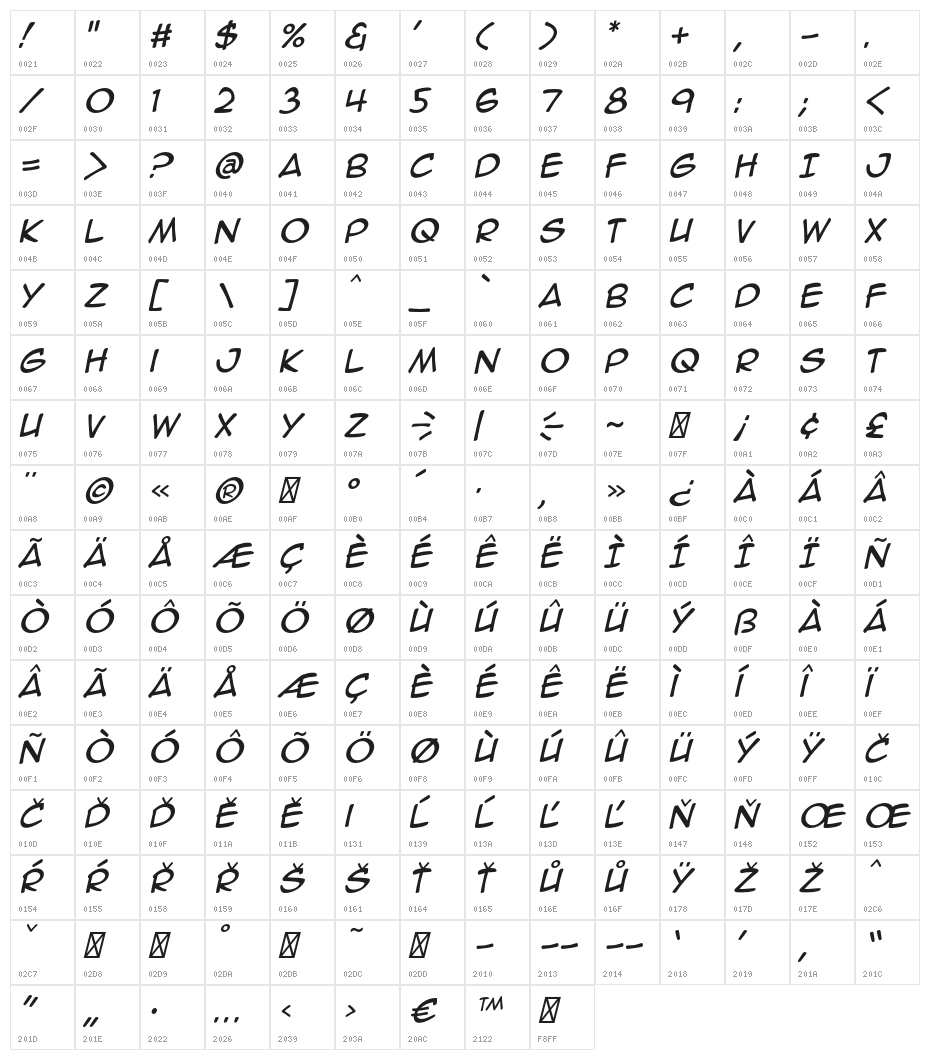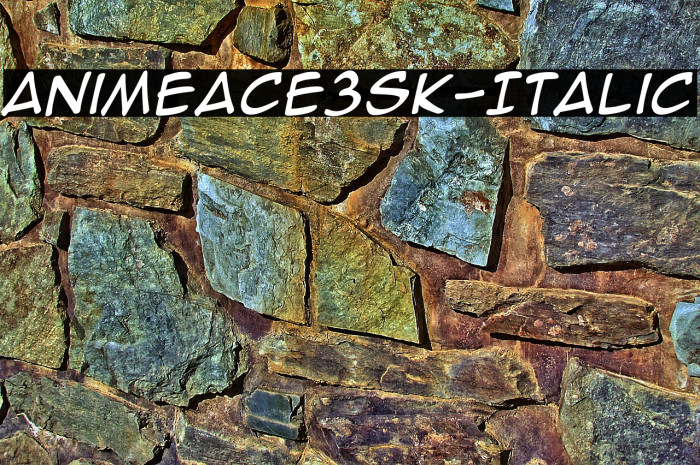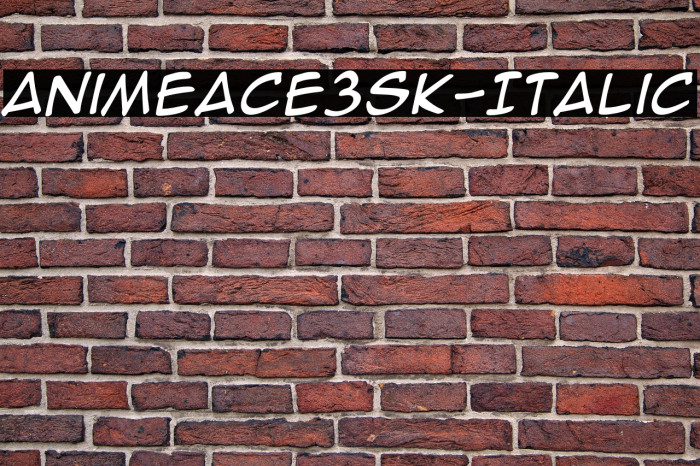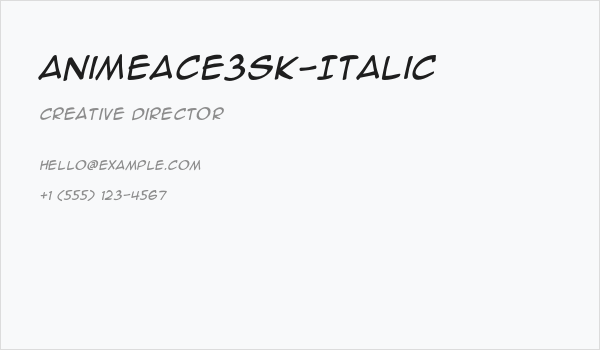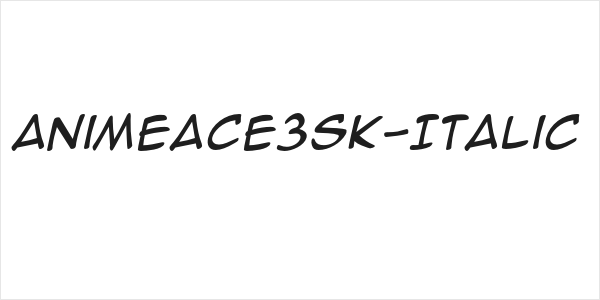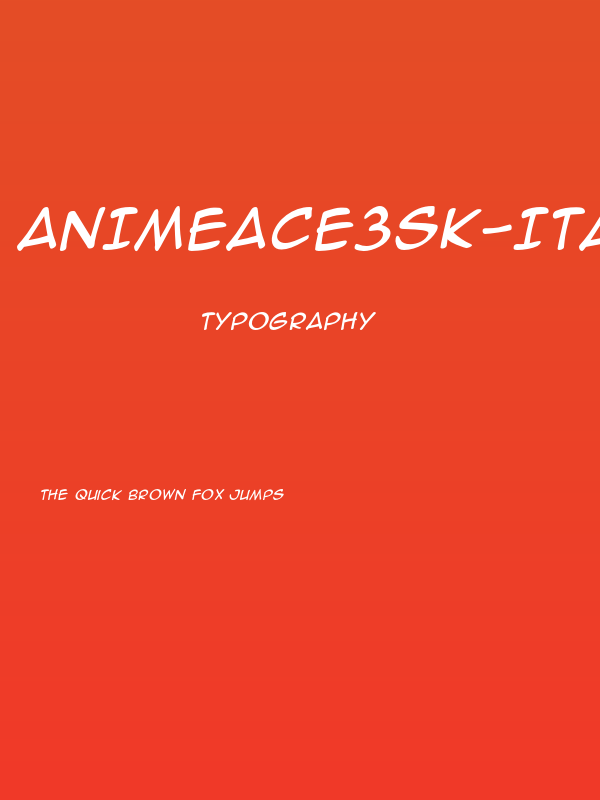
AnimeAce3SK-Italic Font
AnimeAce3SK-Italic Description
This font exhibits a playful and dynamic style, characterized by its italicized, handwritten appearance. The letters are slightly slanted, giving a sense of motion and energy. The strokes are smooth and rounded, contributing to a casual and friendly feel. The uppercase and lowercase letters maintain a consistent style, with a moderate contrast in stroke thickness that enhances readability. The numerals and special characters are designed to match the overall aesthetic, ensuring a cohesive look across all text elements.
| Proposed Projects | Ideal for comic books, children's books, playful branding, and informal invitations. |